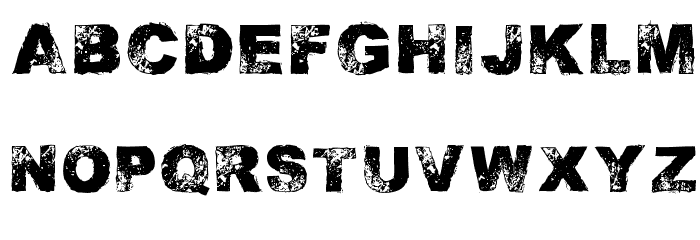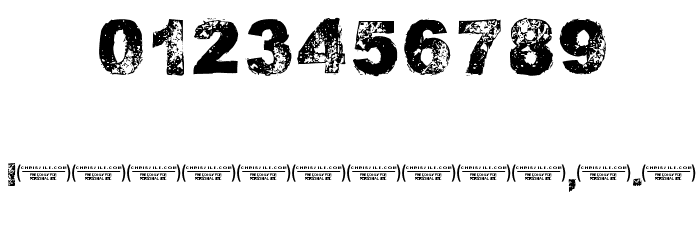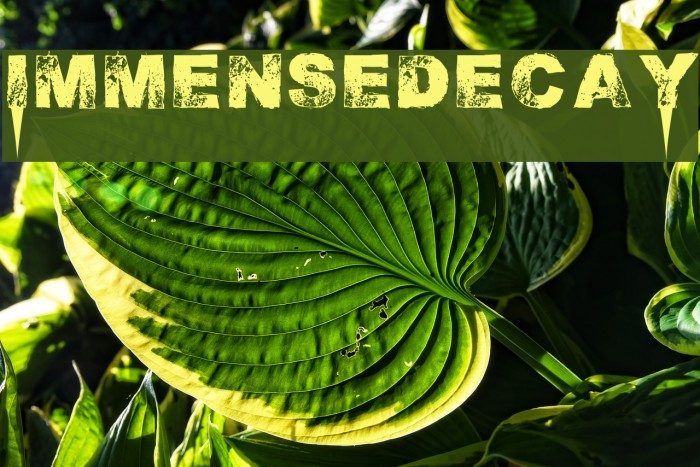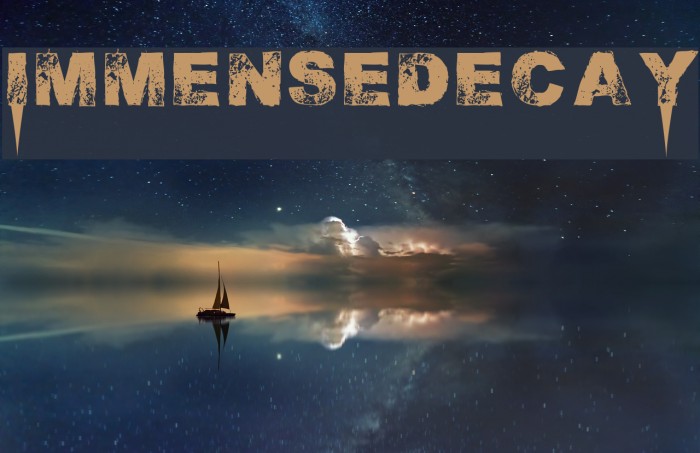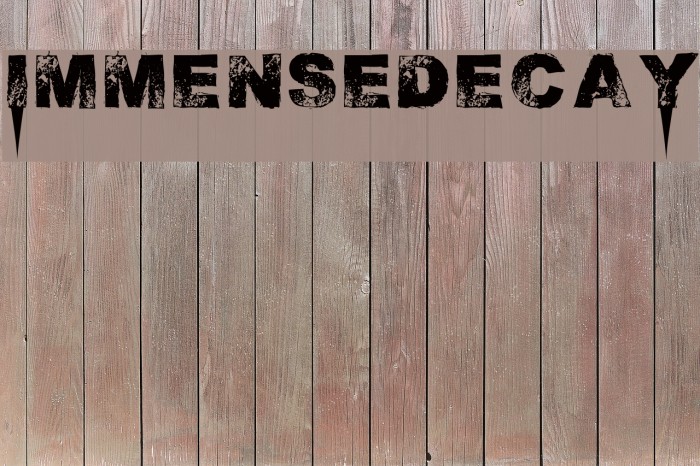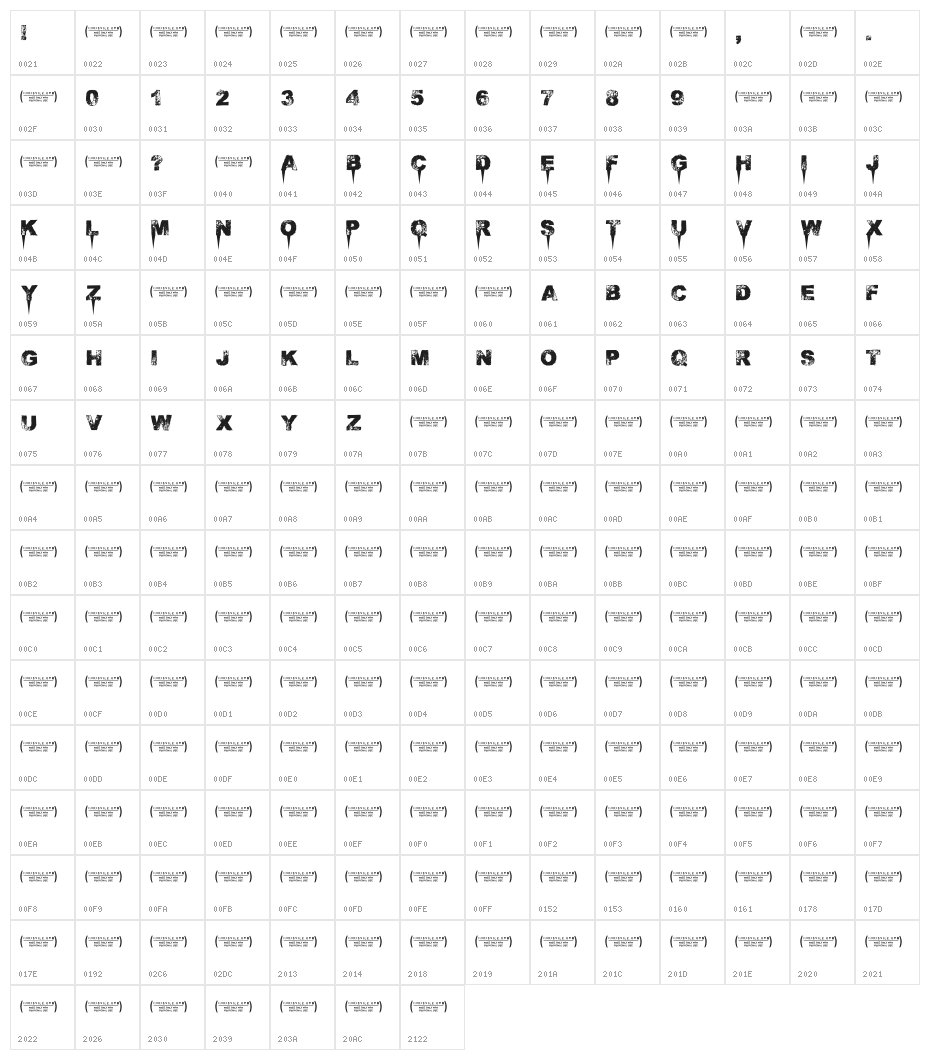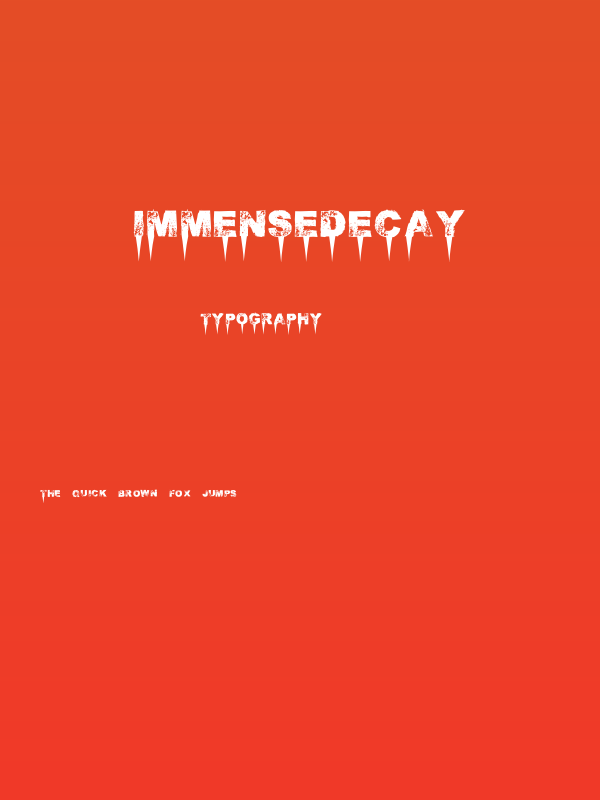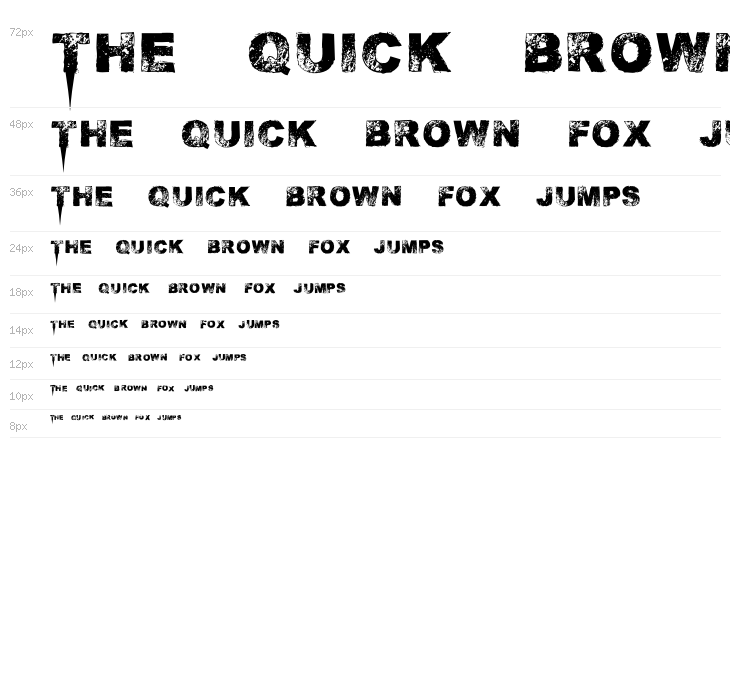
ImmensedecaY Font
This font features a bold and distressed style, with a grunge texture that gives it a rugged and edgy appearance. The uppercase letters are characterized by sharp, pointed extensions at the bottom, resembling icicles or spikes, which add a dramatic flair. The texture within each character is uneven, creating a worn and weathered look. This font is highly decorative and is designed to capture attention with its unique and striking design.
A bold, distressed font with sharp, pointed extensions and a grunge texture.
- Proposed Projects: Ideal for projects that require a dramatic and edgy look, such as horror movie posters, Halloween event flyers, or rock band album covers.